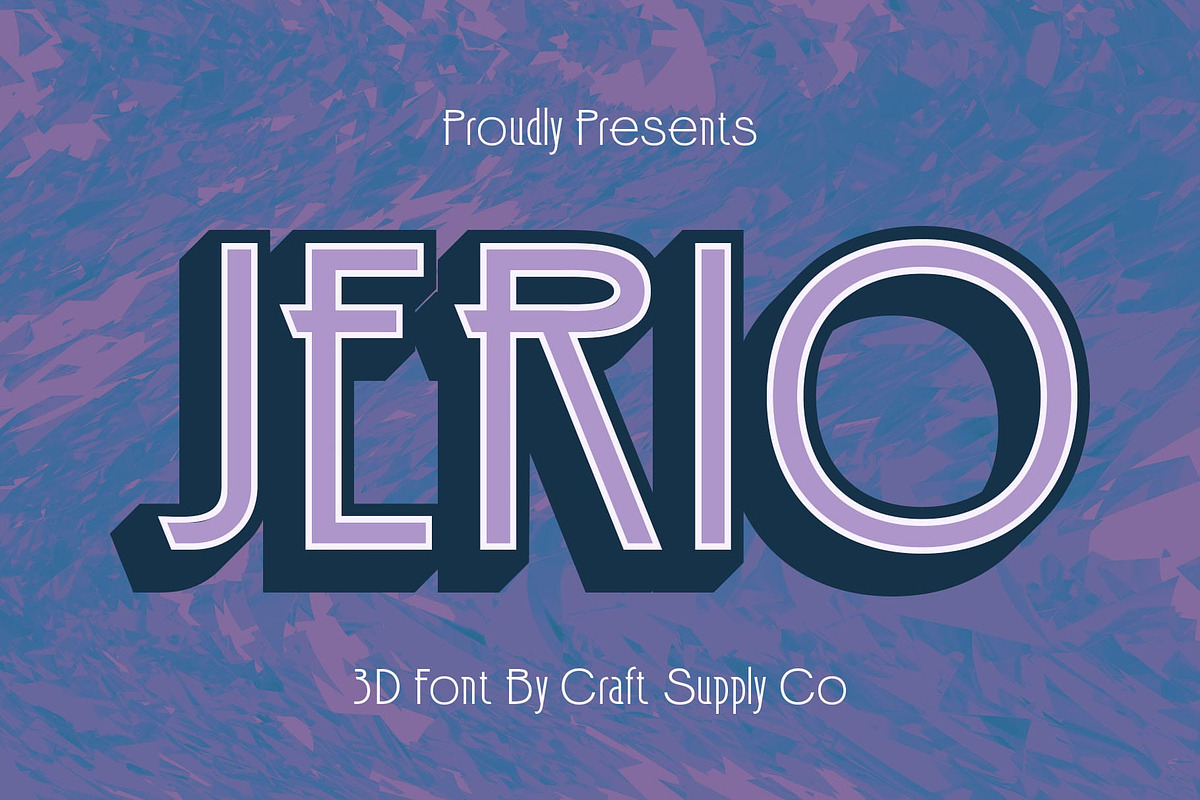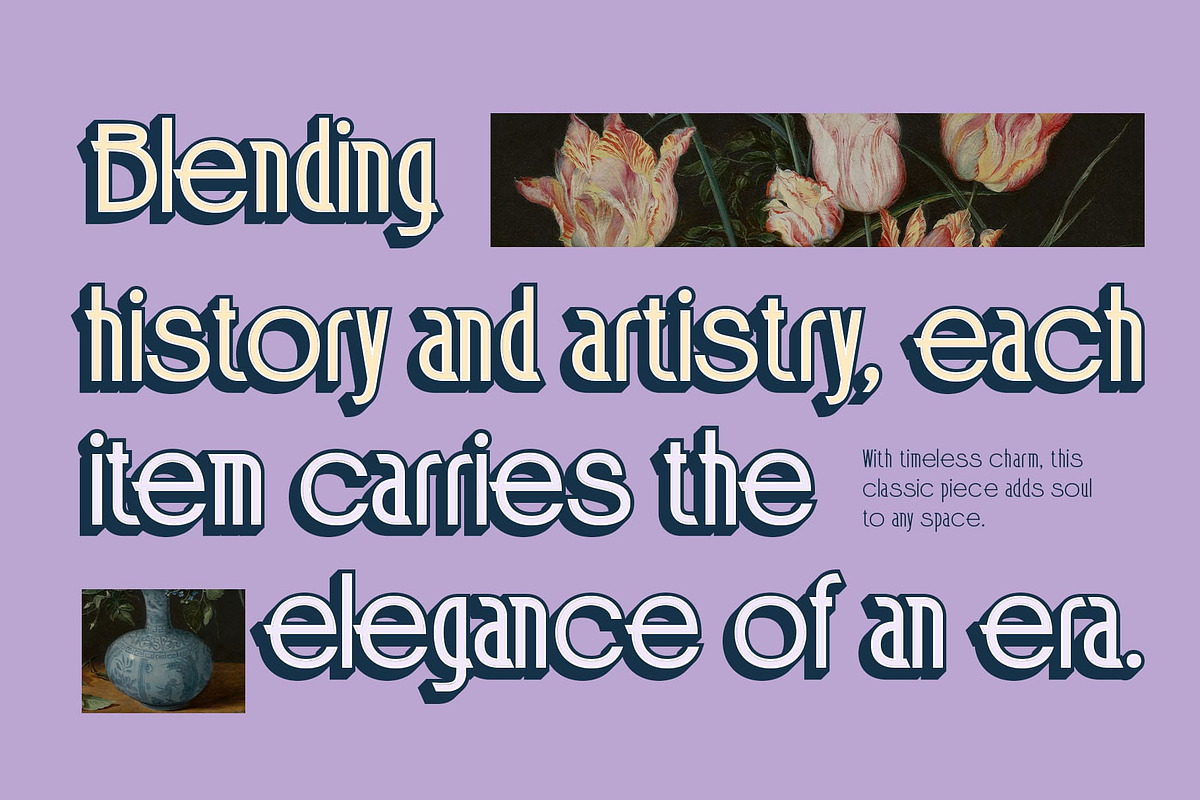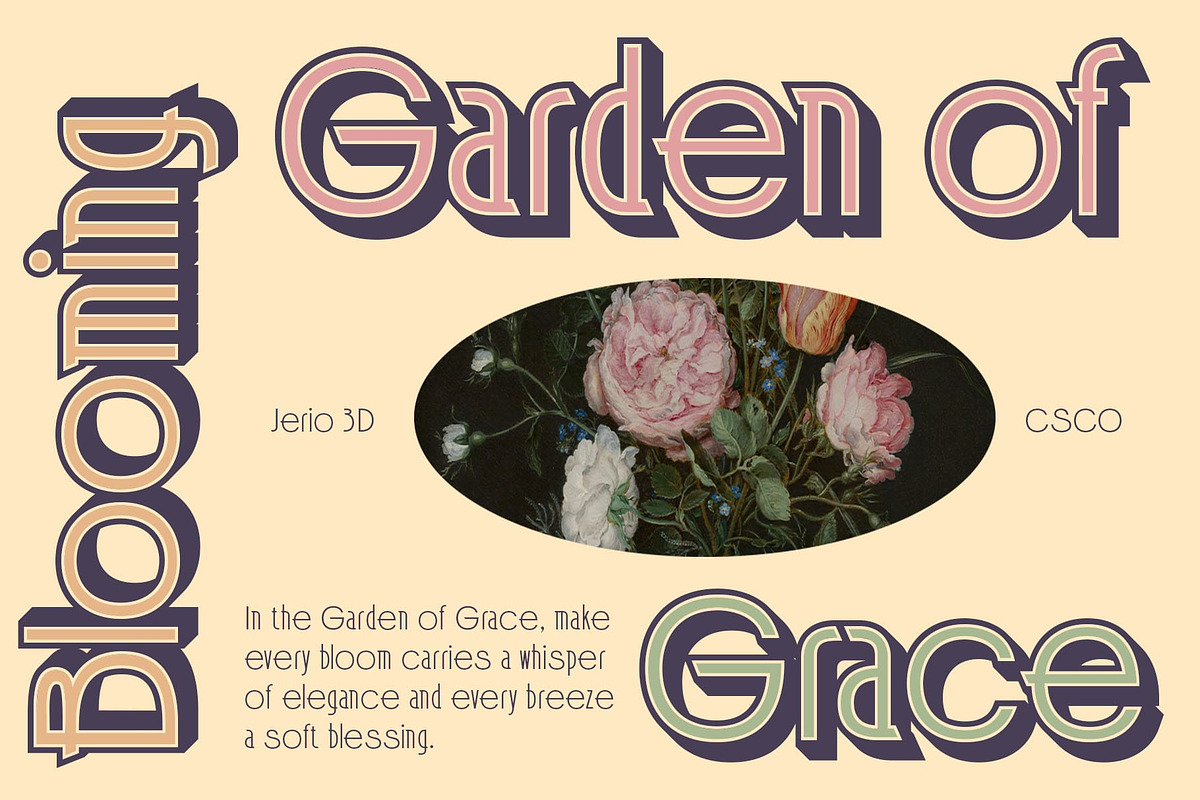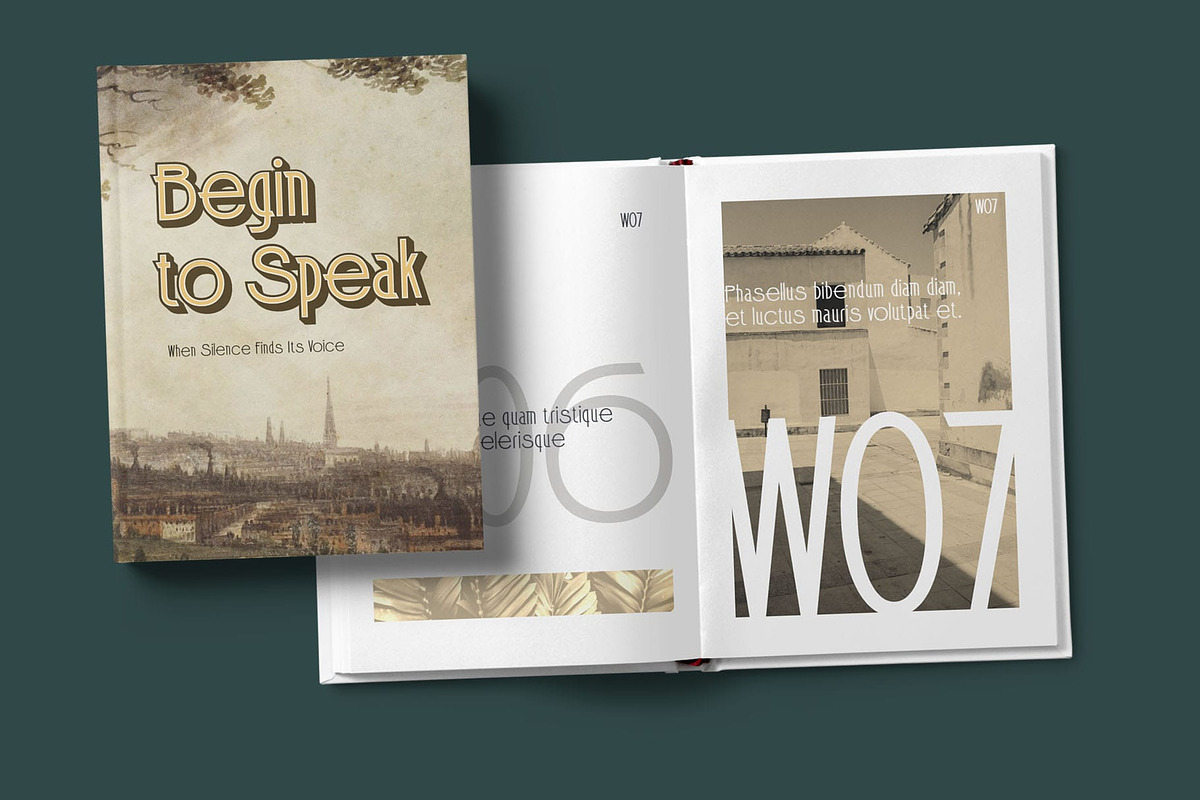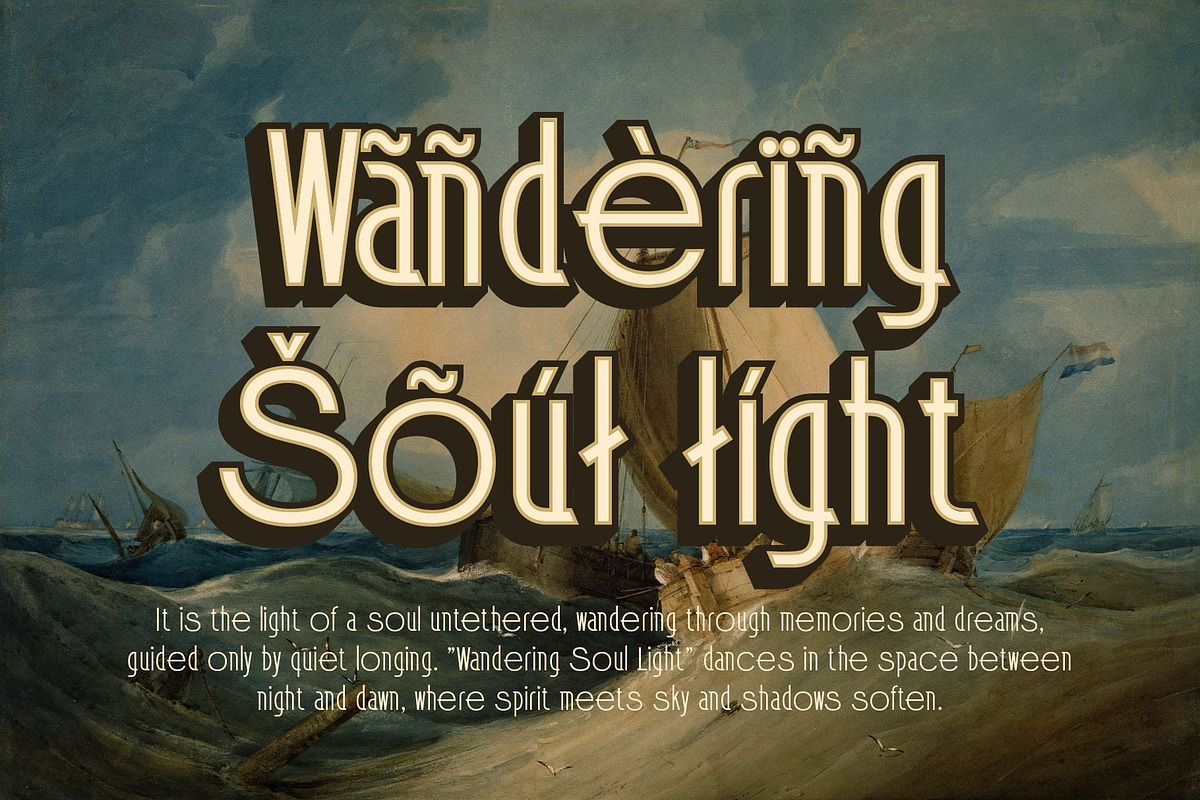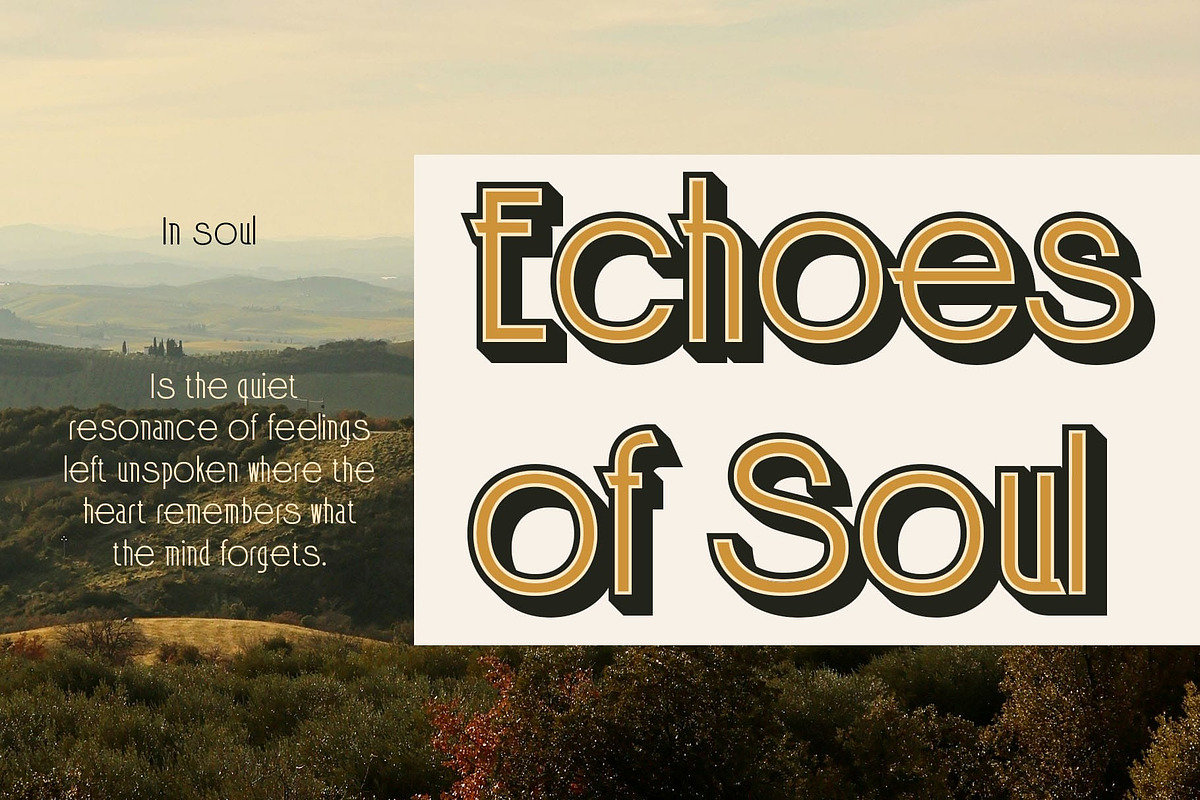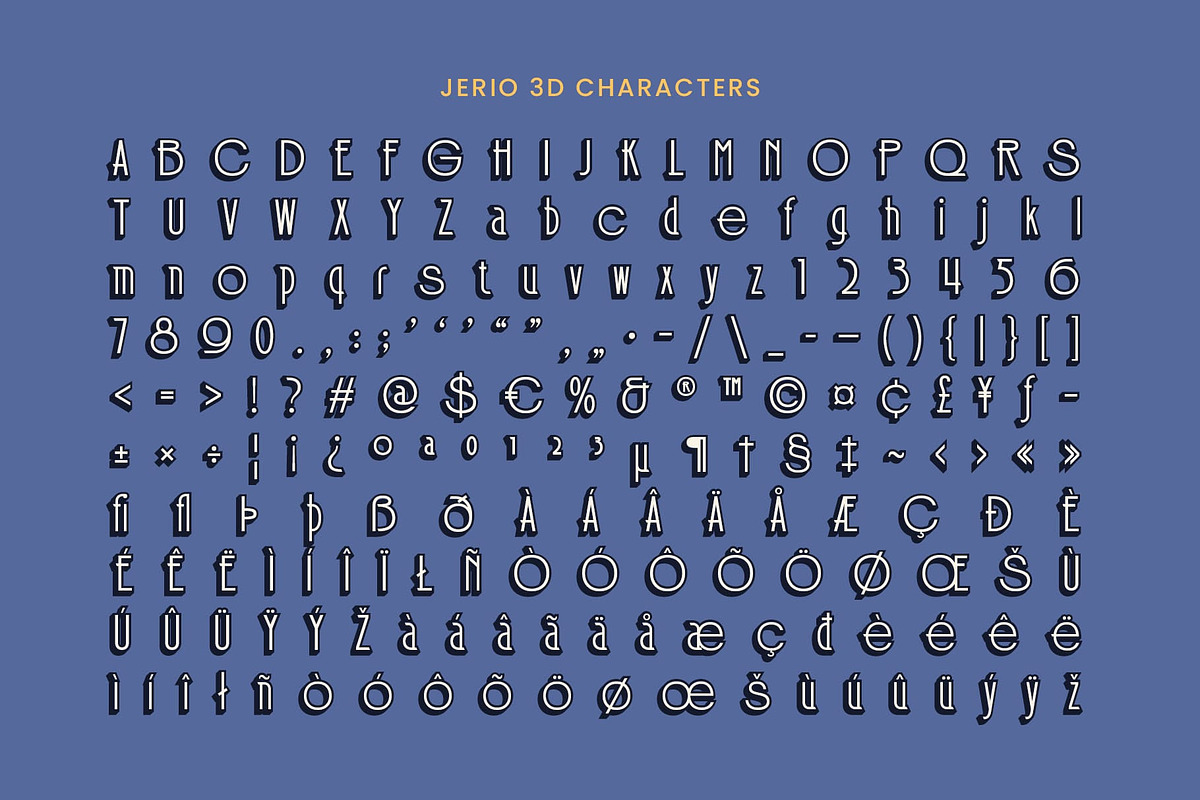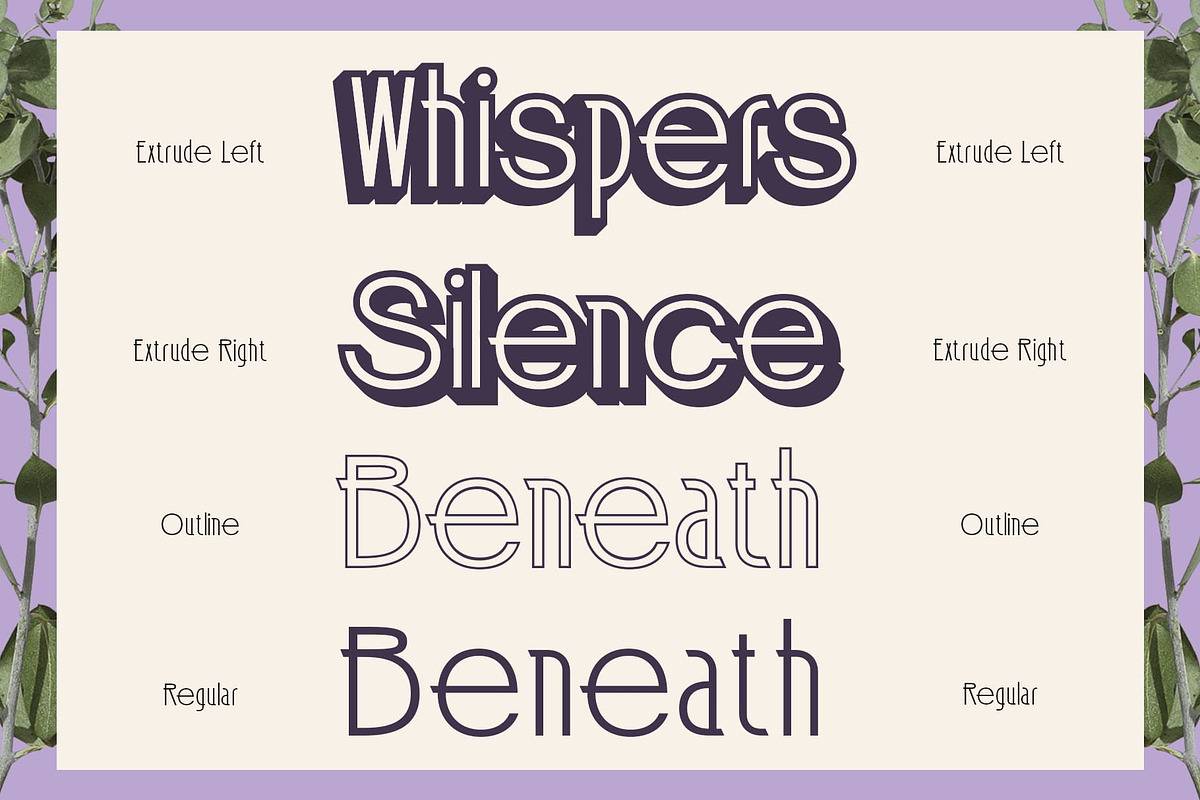
Jerio 3D
Jerio 3D Font – A Bold and Dynamic Sans-Serif Experience
Modern Design with Clean, Proportional Lines Jerio 3D is a modern sans-serif font that embraces simplicity with sophistication. Its clean, proportional lines create a fresh, dynamic feel, offering a contemporary design that stands out. The font’s innovative structure highlights its uniqueness, making it perfect for projects that require a distinct and forward-thinking aesthetic.
Captivating 3D Effect for Added Depth Each character in Jerio 3D features a striking 3D effect, which enhances its depth and visual dimension. This dimensional quality gives the font a bold, prominent presence, adding both interest and energy to any design. The 3D effect makes it ideal for creating attention-grabbing headlines, logos, and branding.
Futuristic and Creative Vibe Designed to evoke a sense of the future, Jerio 3D is perfect for designs that aim to showcase creativity, innovation, and modernity. Its strong and confident appearance adds a unique element to any project, making it an ideal choice for tech-related designs, futuristic branding, and projects that require a cutting-edge look.
Perfect for Bold and Innovative Designs Whether used for branding, posters, digital media, or any other creative project, Jerio 3D brings a modern, bold edge. Its futuristic style and clean design, combined with the powerful 3D effect, make it a versatile and captivating font for any design that seeks to make an impact.
- Jerio Regular
- Jerio Outline
- Jerio Extrude Right
- Jerio Extrude Left